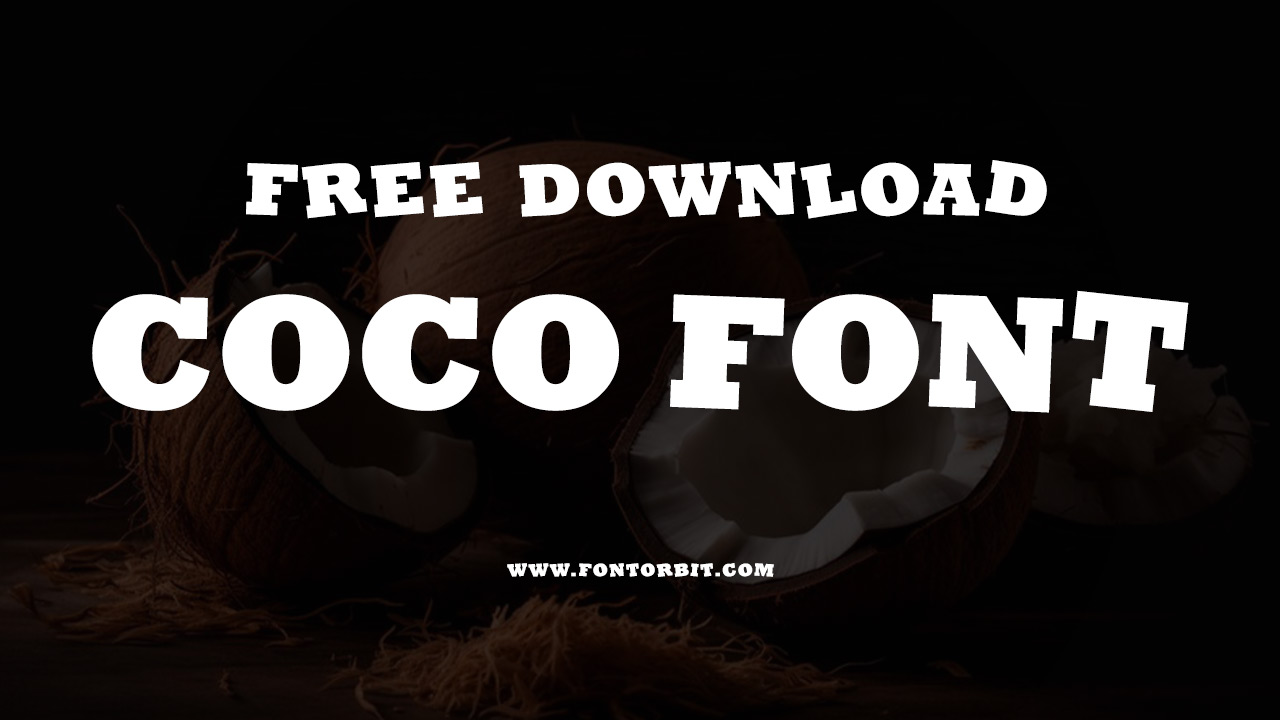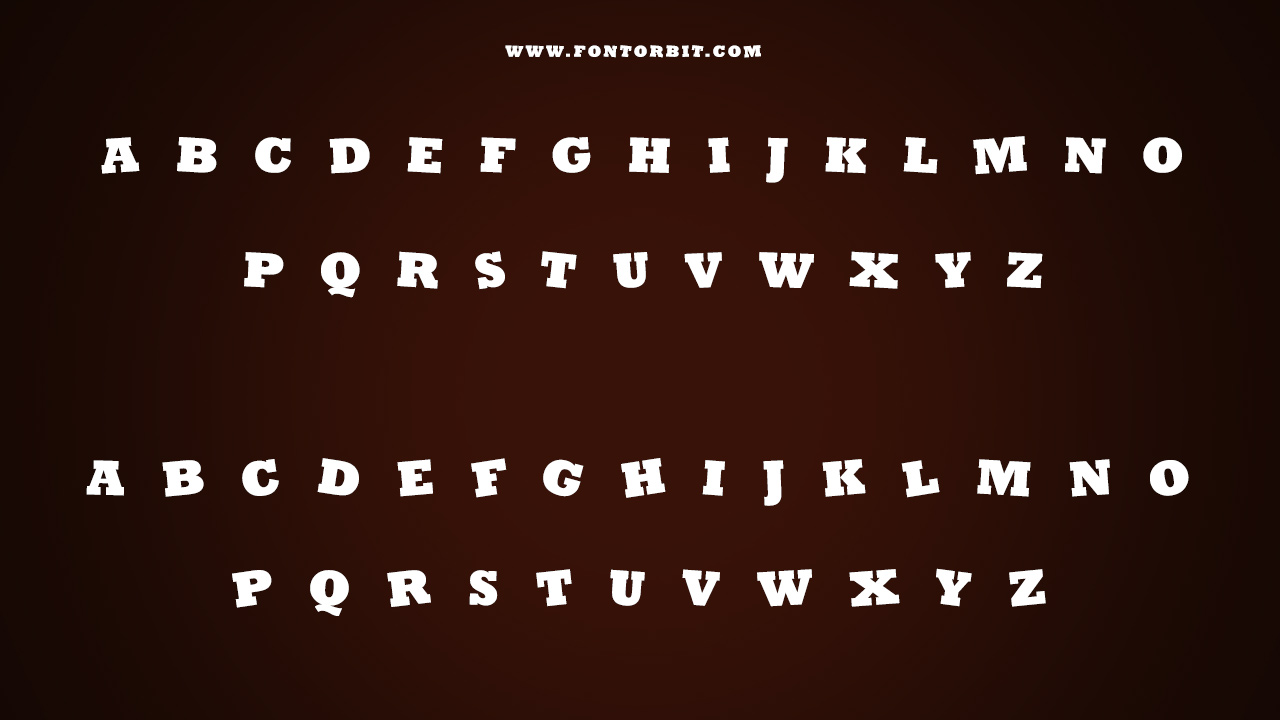
Franco Fernandez designed the Coco Font, a distinguished slab serif typeface celebrated for its elegant and fashionable design. With its bold, geometric shapes and clean lines, Coco is perfect for projects that demand a strong and stylish visual impact.
The Coco Font Family
- Coco Regular
- Coco Italic
- Coco Bold
- Coco Bold-Italic
- Coco Condensed
- Coco Condensed-Italic
- Coco Condensed Bold
- Coco Condensed Bold-Italic
This typefamily shines in both digital and print formats, making it ideal for everything from sleek headlines to sophisticated branding. Its varied styles allow for creative flexibility, while its clean lines and refined design elements add a touch of sophistication to any project.
- Digital Media
- Print Publications
- Fashion Projects
- Editorial Design
Coco Font excels in delivering a polished and stylish appearance. Its wide range of styles makes it suitable for diverse applications, from impactful headlines and elegant branding to detailed editorial layouts. It’s a perfect choice for projects that require a refined and fashionable touch.
Coco Font’s modern and versatile design makes it an excellent choice for a variety of professional and creative applications. Its broad range of styles ensures it meets diverse design needs while adding a touch of elegance and clarity to any project.
2.How To Choose The Right Size For Coco Font?
Coco is adaptable to different sizes but excels in both large and small text applications, making it ideal for headlines, body text, and everything in between.
3.What Are The Key Features Of The Coco Font?
Coco features a range of styles, including regular, italic, bold, and condensed variations, offering flexibility and sophistication for diverse design needs.
4.How To Use The Coco Font In Design?
Use Coco for elegant headlines, sophisticated branding, and versatile print or digital projects to achieve a refined and polished look.
5.What Are The International Language Support Options For The Coco Font?
Coco supports a wide range of Latin-based languages, making it suitable for diverse linguistic applications while maintaining its elegant and clean design.